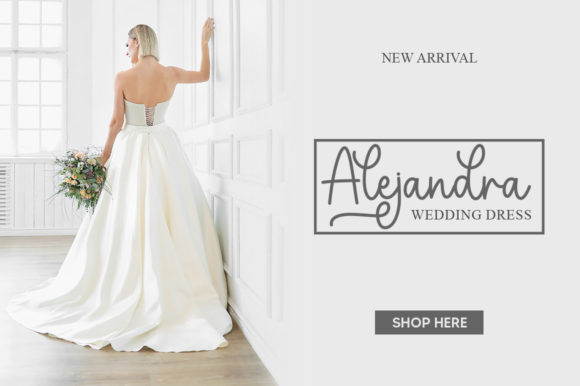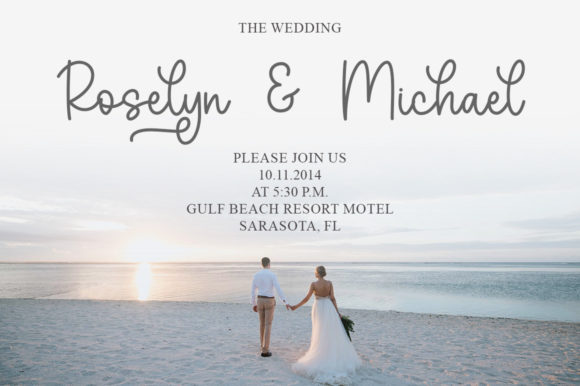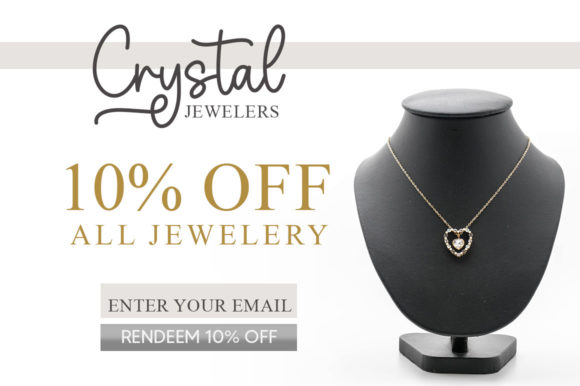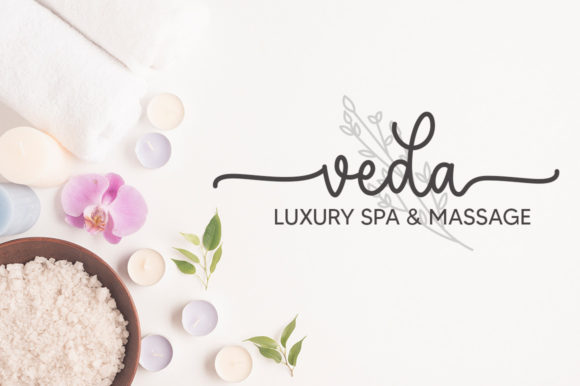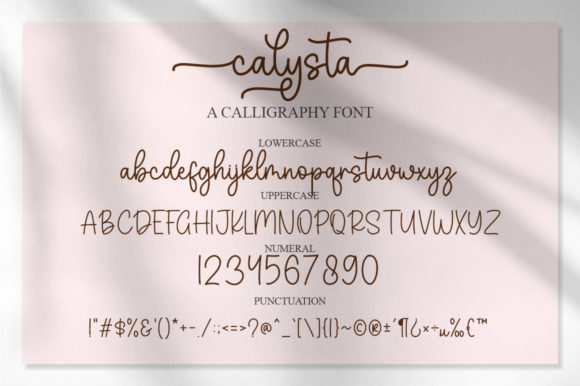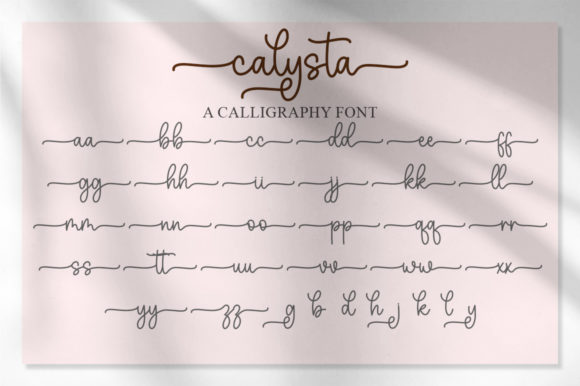
Introducing Calysta Font: The Epitome of Elegance and Romance
In the realm of typography, few fonts capture the essence of romance and elegance as beautifully as Calysta. This dainty and flowing script font is a masterpiece designed to infuse your creative projects with a touch of sophistication and charm. Whether you’re penning love letters, designing wedding invitations, or brainstorming your next big design idea, Calysta is the perfect companion to bring your visions to life.
The Beauty of Calysta
Calysta stands out with its delicate and fluid strokes, exuding a sense of grace and refinement. Each letter is meticulously crafted to contribute to the overall harmony and beauty of the font, making it a joy to use in various design projects. The romantic vibe of Calysta is undeniable, capable of transforming even the simplest of designs into something truly magical.
PUA Encoding for Ease of Use
One of the key features that sets Calysta apart is its PUA (Private Use Area) encoding. This means that accessing all the glyphs and swashes is incredibly straightforward. Designers and crafters can easily navigate through the font’s extensive range of characters, including alternates and decorative swashes, allowing for a high degree of customization and creativity. This feature is especially useful for those looking to add a personal touch to their work without the hassle of complicated font management.
Perfect for Love Letters and Wedding Invitations
Calysta truly shines when used in romantic contexts. For love letters, it adds a vintage and intimate feel, making each word feel like a whispered secret. When it comes to wedding invitations, Calysta brings an air of sophistication and elegance, setting the tone for a memorable and beautiful celebration. The font’s ability to convey emotion and sentiment makes it an invaluable tool for designers tasked with creating bespoke wedding stationery.
Beyond Romance: Versatility in Design
While Calysta excels in romantic contexts, its versatility means it can be used in a wide array of design projects. From branding and packaging to digital interfaces and art, Calysta can add a touch of elegance and whimsy to virtually any design. Its flowing script can complement more structured typography, adding depth and interest to your work.
Tips for Using Calysta
- Mix and Match: Don’t be afraid to experiment with different glyphs and swashes. Calysta’s PUA encoding makes it easy to access these, and they can dramatically change the look and feel of your design.
- Pairing: Consider pairing Calysta with a more structured, sans-serif font for contrast. This can help highlight the elegance of Calysta while providing visual interest through contrast.
- Color: Soft, pastel colors can enhance Calysta’s romantic feel, but don’t shy away from bold colors to make a statement.
Calysta is more than just a font; it’s a design element that can elevate your projects with its romantic charm and elegant flow. Its PUA encoding ensures that users have access to a wide range of glyphs and swashes, making it incredibly versatile for various design needs. Whether you’re a professional designer or a crafting enthusiast, Calysta is sure to become a cherished part of your creative toolkit. So why wait? Add Calysta to your collection today and discover the beauty it can bring to your designs.